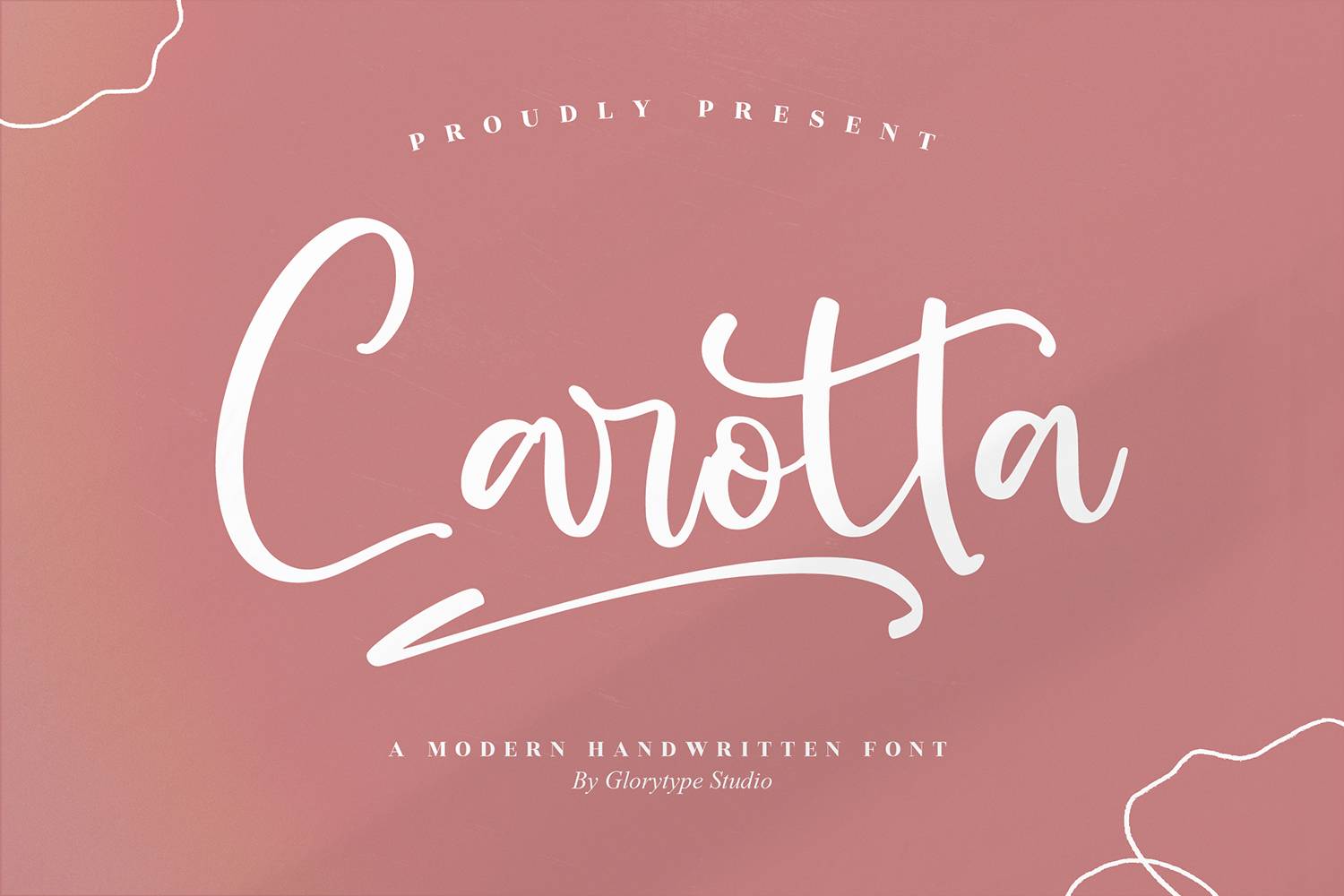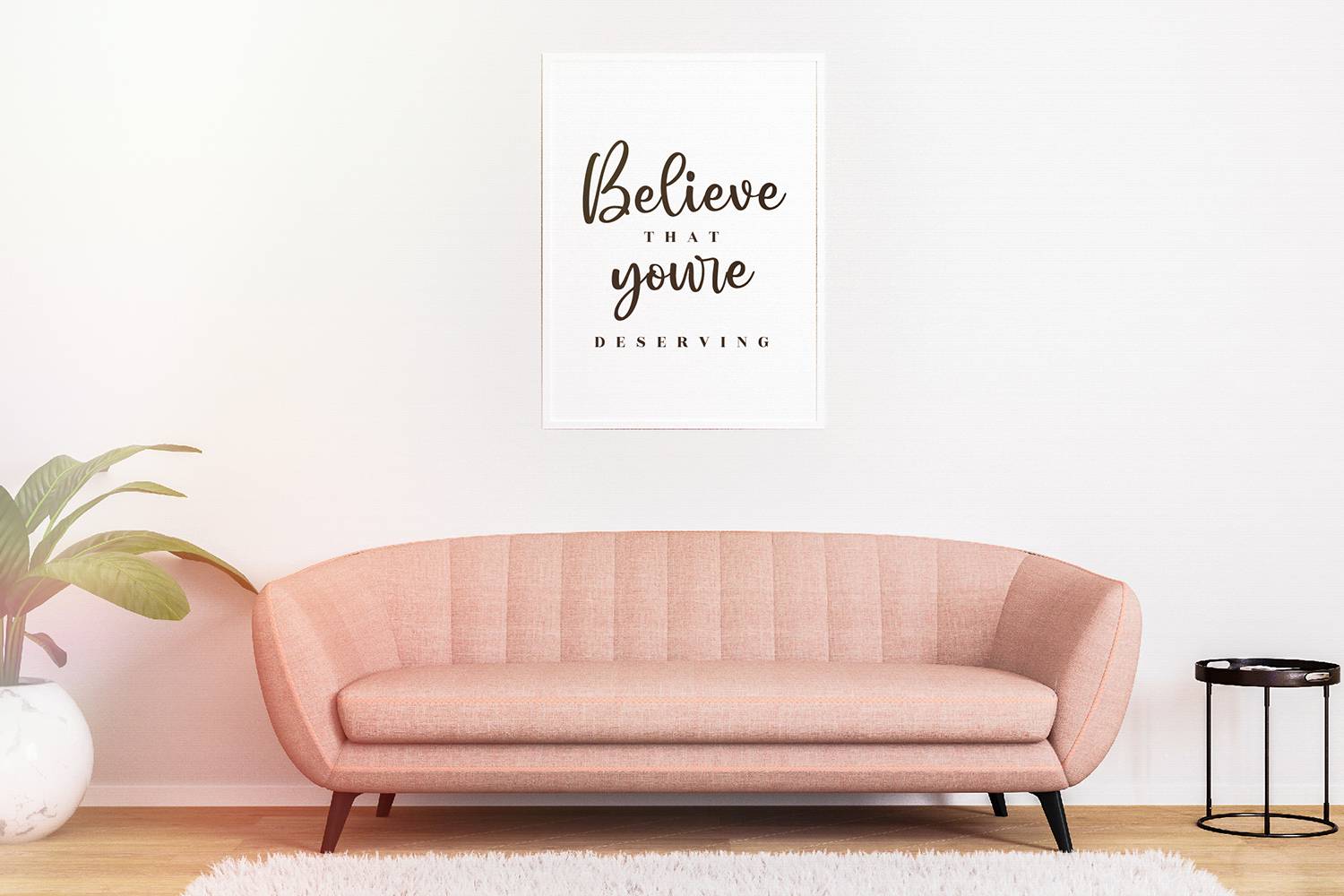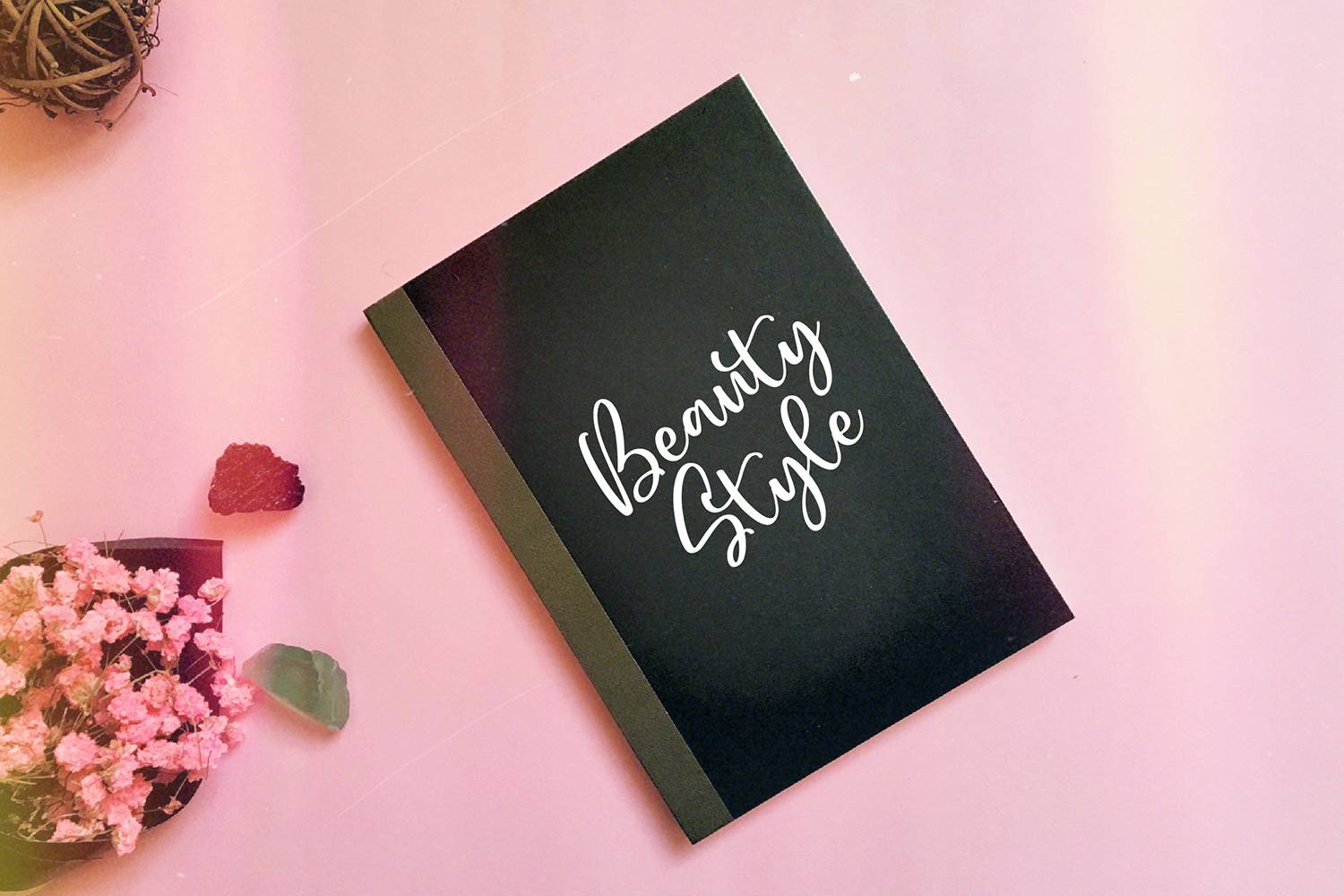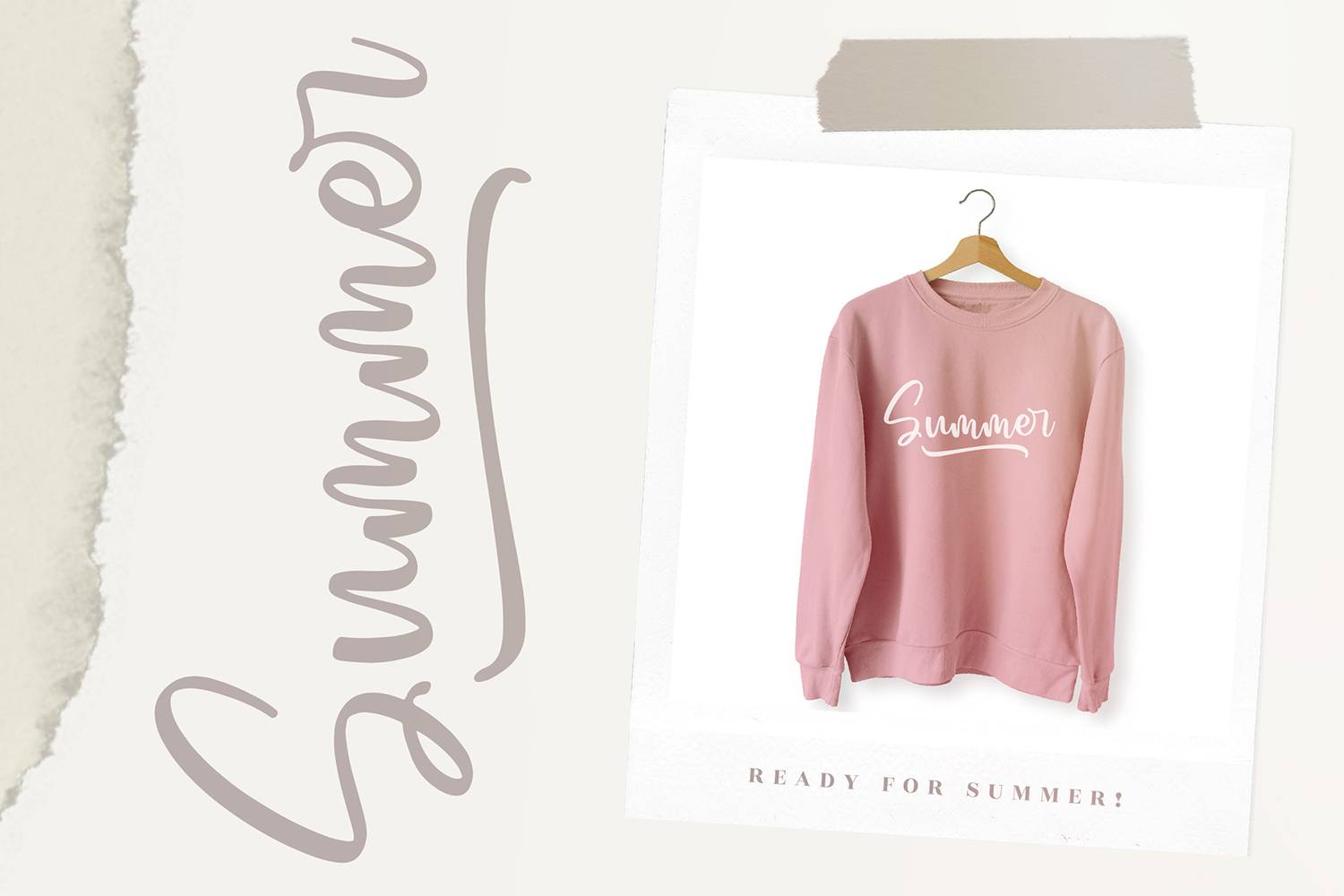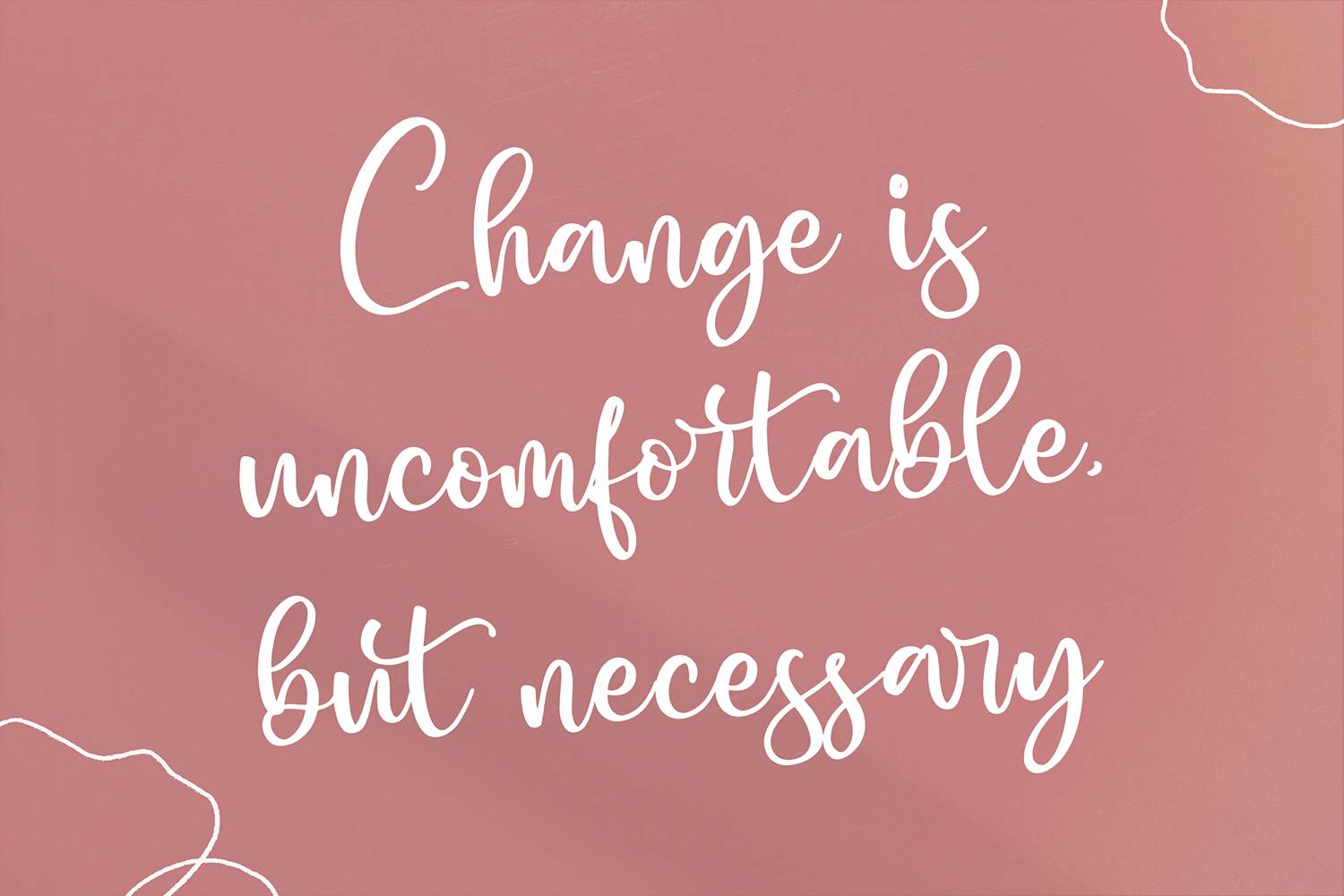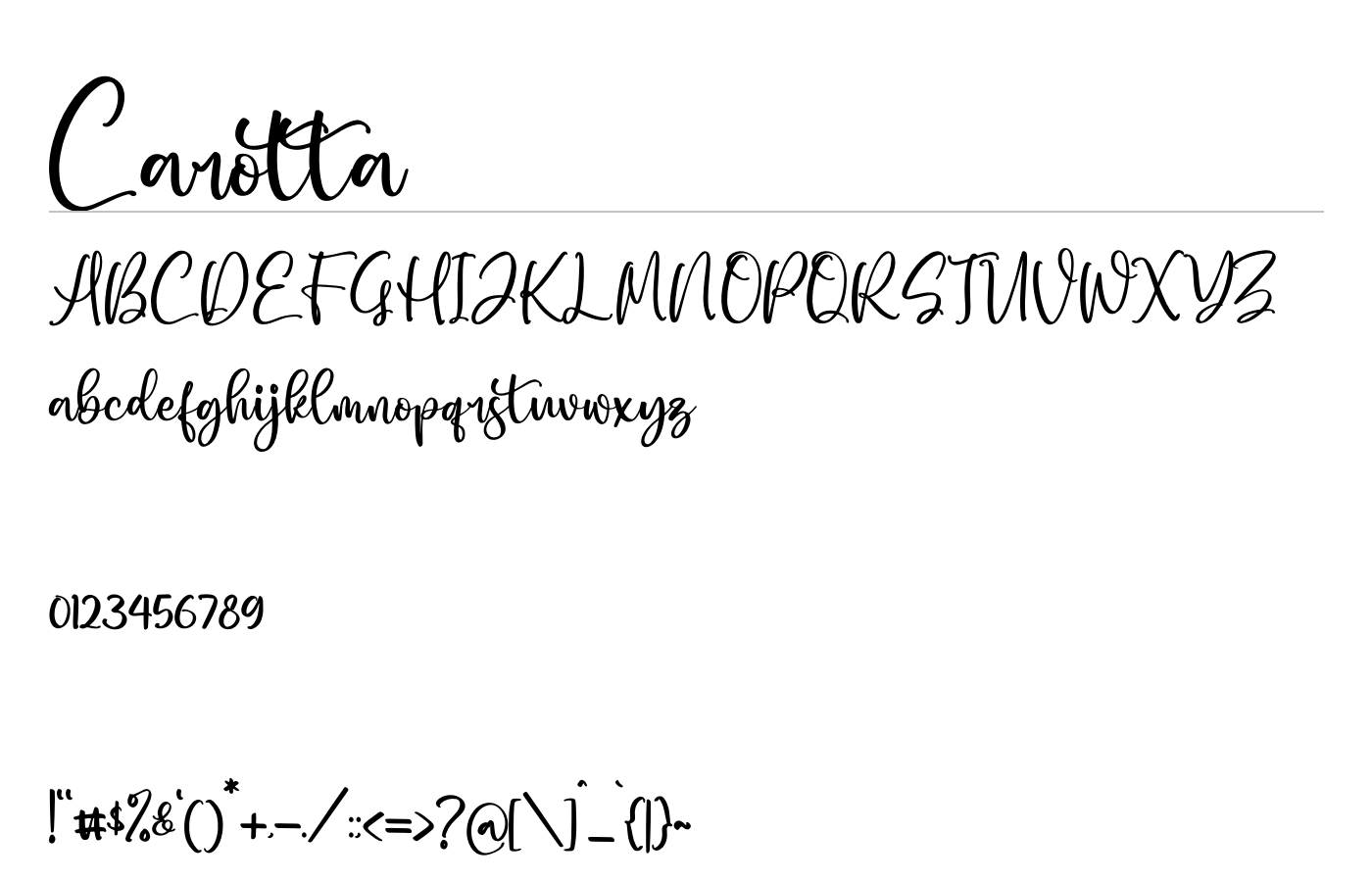
Carotta is a playful, handwritten script font with a lively and casual feel. Its light to regular weight strokes have smooth, flowing curves and delicate loops, creating an elegant yet approachable look perfect for invitations, branding, and creative projects that want a personal, friendly touch. This font shines in designs where a warm, handcrafted style is needed without sacrificing readability.
Carotta Font
About Carotta Font